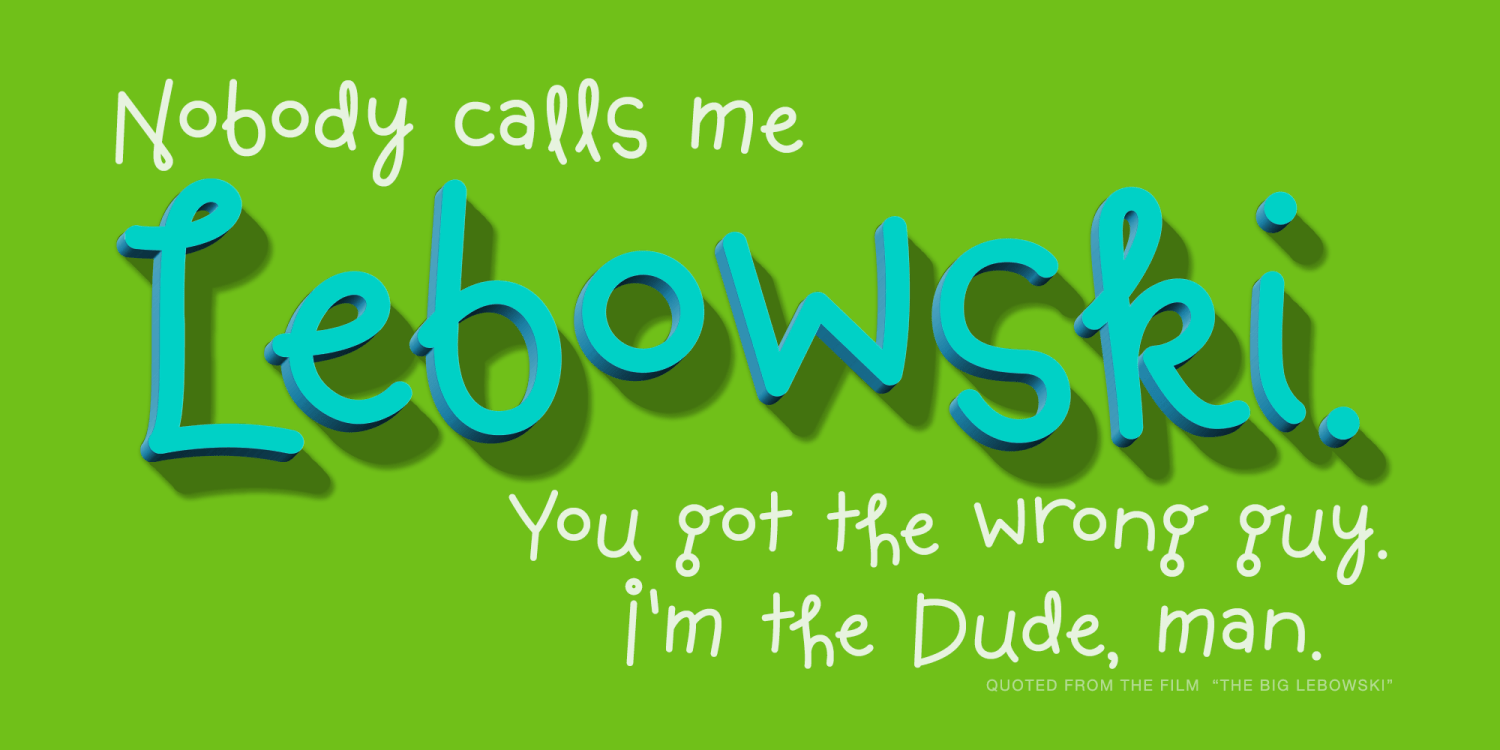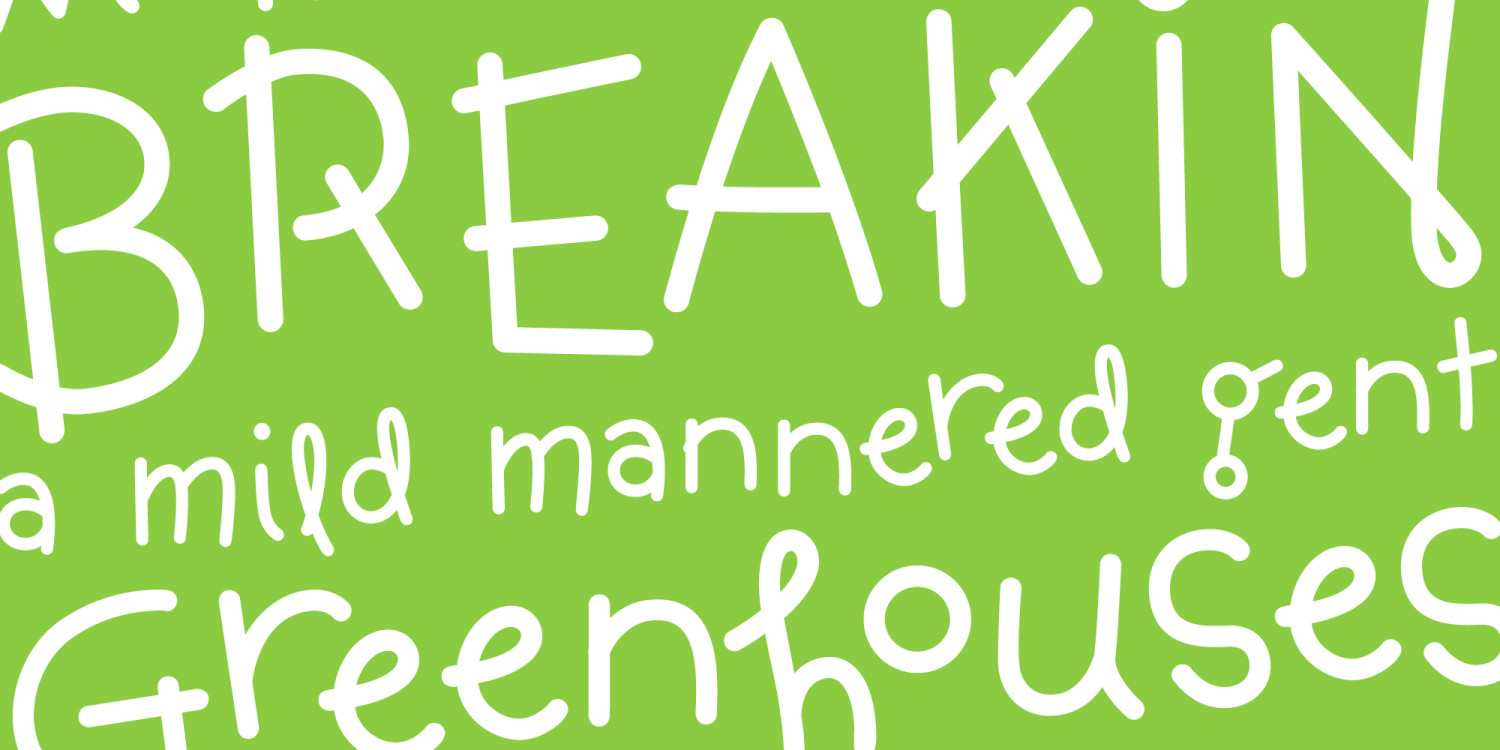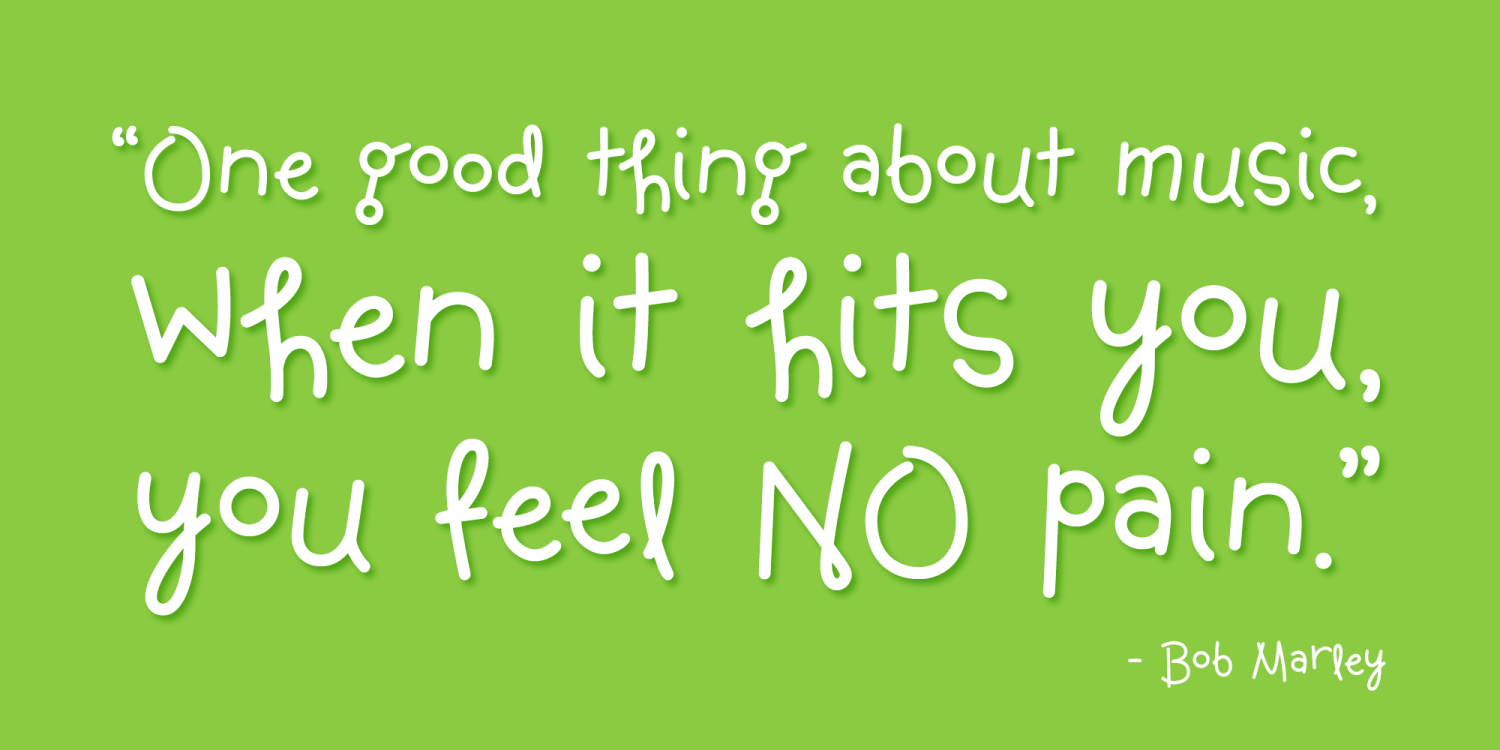
About Jus Hangin PB
Jus Hangin was inspired by the lettering on the cover of the 1999 Counting Crows album, ?This Desert Life?. It was one of those child-like lettering styles that was just begging to be fleshed out and made into a typeface that was as wild and carefree as the lettering inspiration.
With an open spacing format, and an exuberant baseline bounce, Jus Hangin is fun to typeset with, while alternates and double letter ligatures keep things from getting repetitive. You'll find Jus Hangin is ready and waiting to announce your festivities.